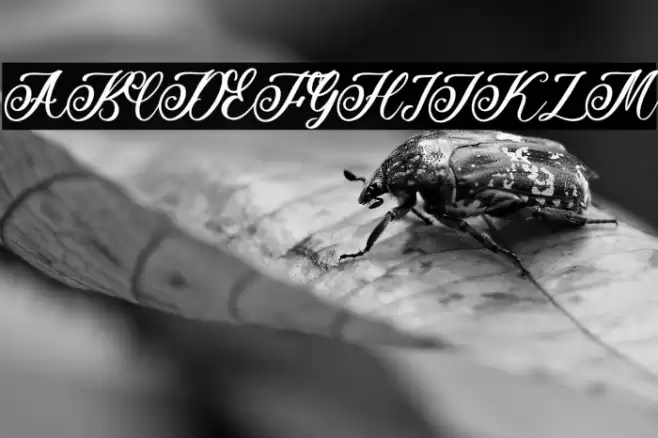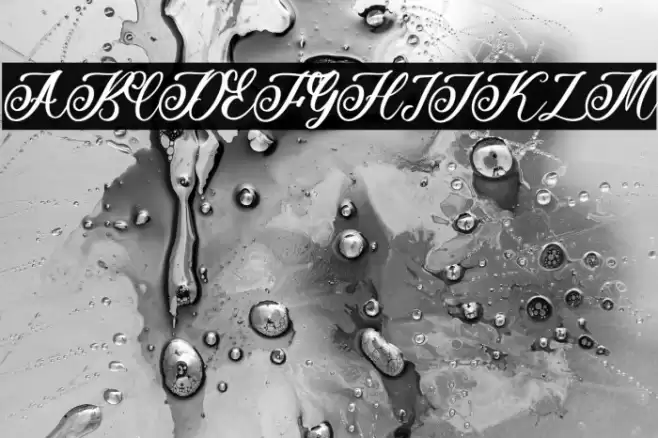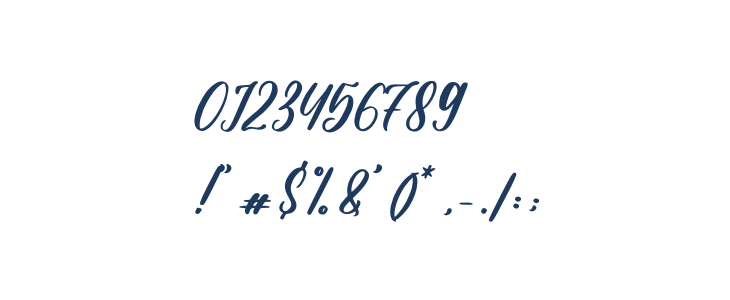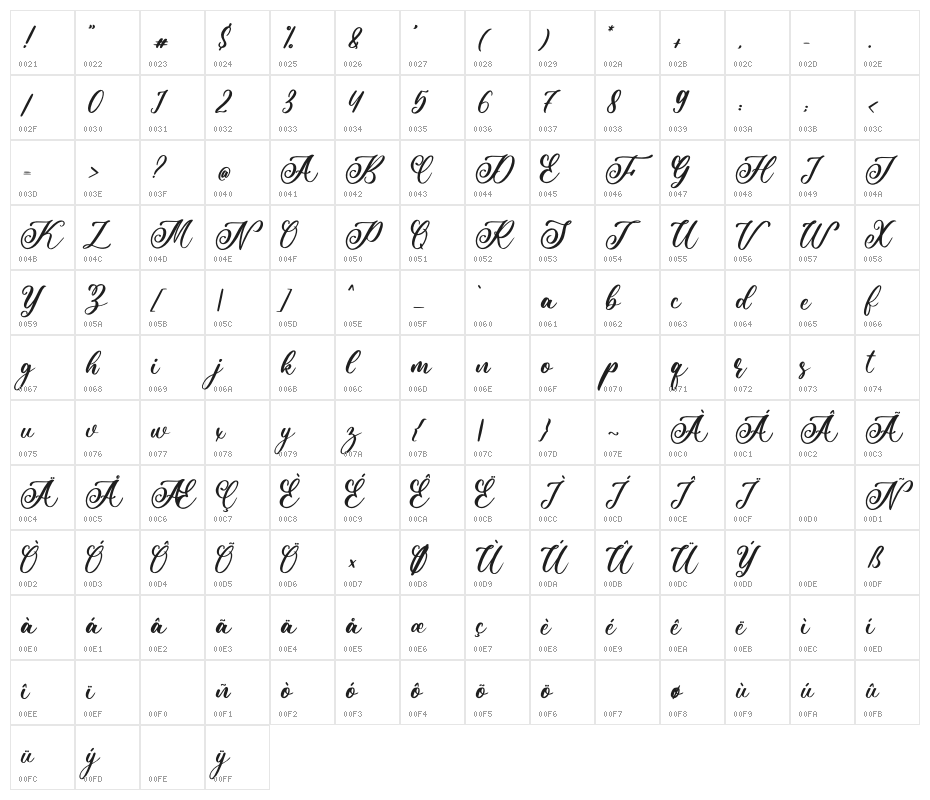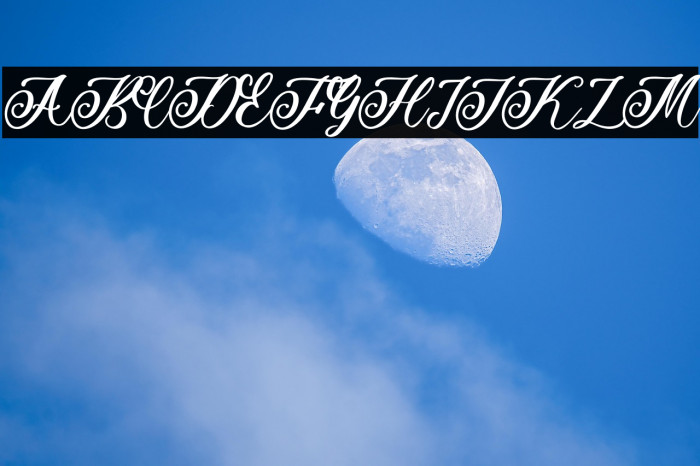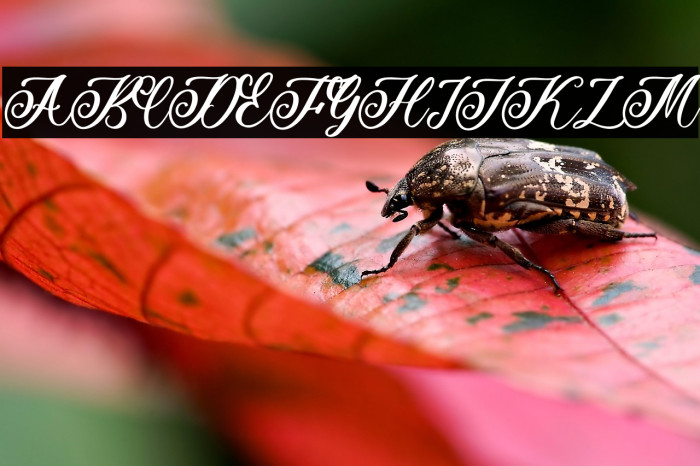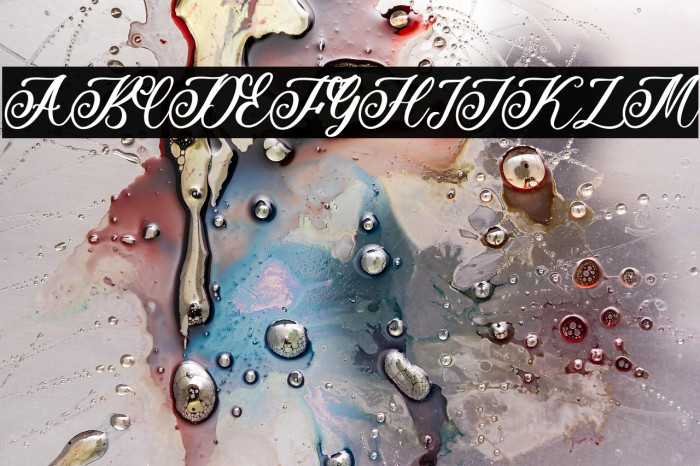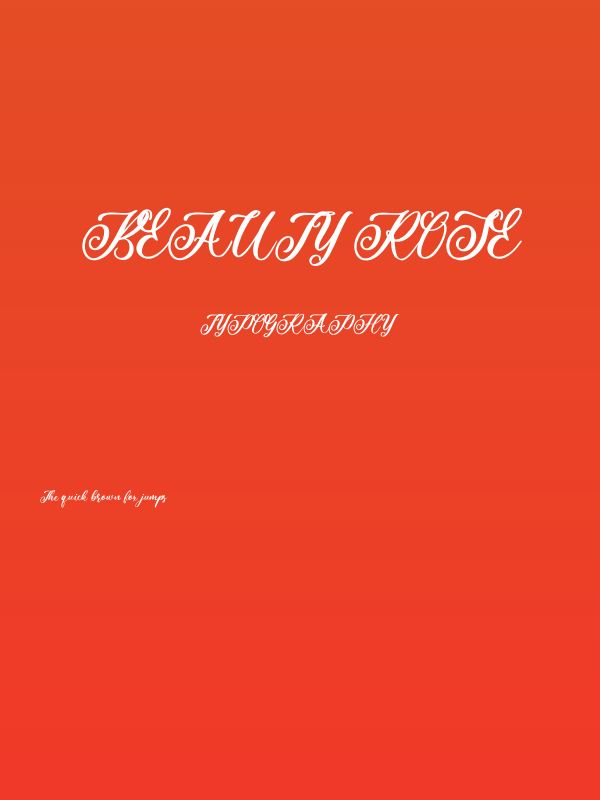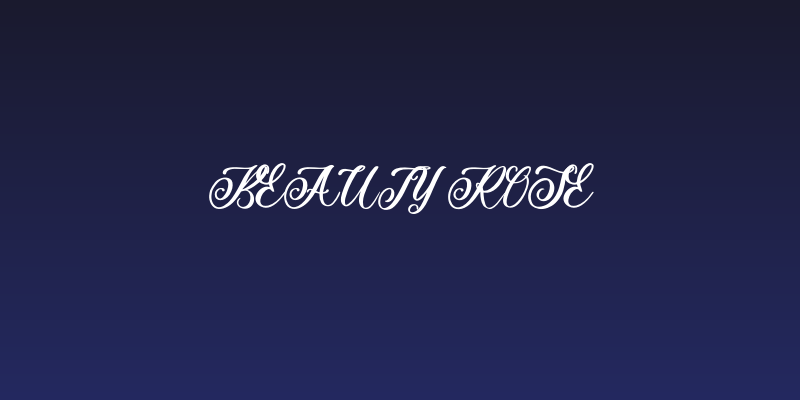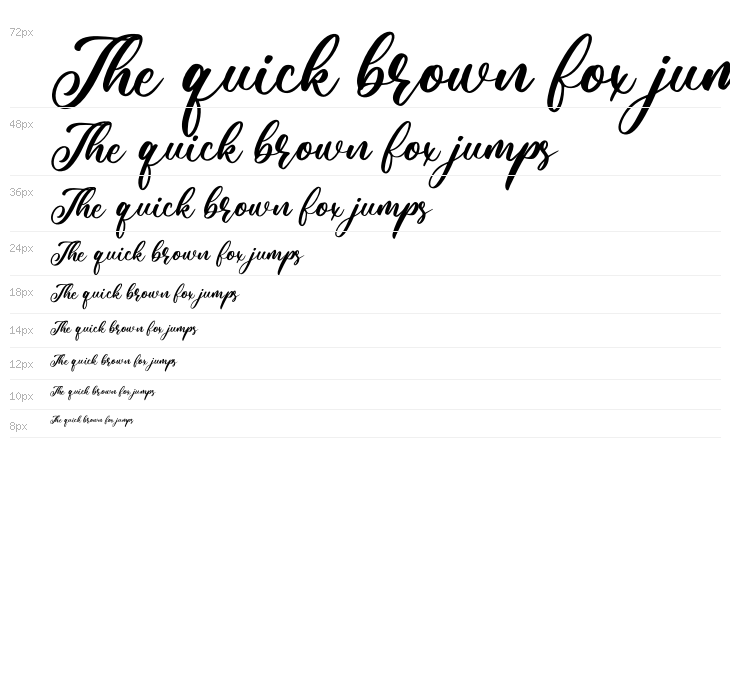
Beauty Rose Font
Beauty Rose Description
This elegant script font features a flowing, cursive style with intricate loops and swashes that give it a sophisticated and decorative appearance. The uppercase letters are particularly ornate, with elaborate flourishes that add a touch of luxury and refinement. The lowercase letters maintain a consistent cursive flow, making them highly legible despite their decorative nature. The numerals and special characters are designed to match the overall style, ensuring a cohesive look across all text elements. This font is perfect for projects that require a touch of elegance and sophistication.
An elegant script font with intricate loops and swashes, perfect for decorative use from Uncategorized fonts.
- Font: Beauty Rose
- Proposed Projects: Ideal for wedding invitations, luxury branding, greeting cards, and elegant packaging designs.
- Use Case: Logos, Invitations, Decorative text